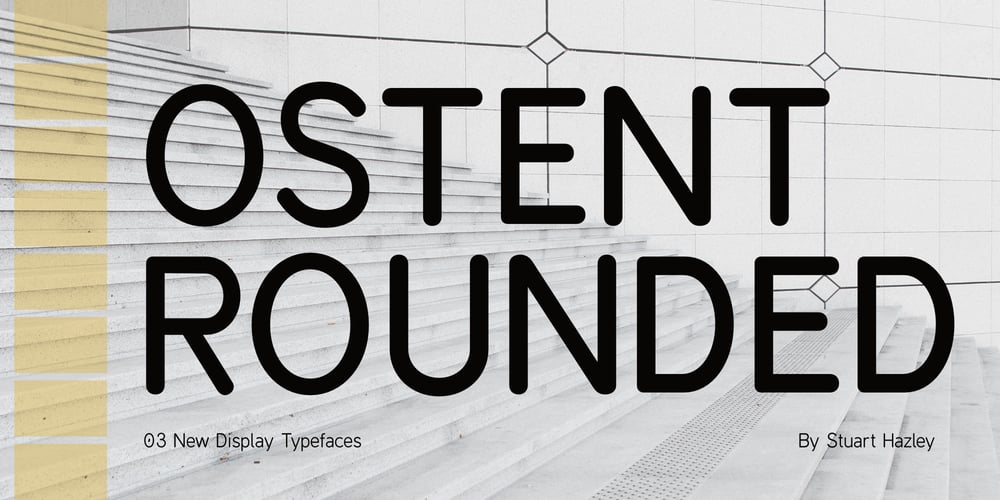
Ostent Rounded
Ostent Rounded font
Ostent Rounded Font Family was designed by Stuart Hazley and published by Stuart Hazley. Ostent Rounded contains 3 styles and family package options. Introducing Ostent Rounded, a modern typeface that blends the timeless elegance of Din 1451 with a contemporary twist. This font family adds a touch of sophistication to your design projects, and is available in three carefully crafted weights, namely Light, Regular, and Heavy, offering a versatile range for a variety of applications.Inspired by the iconic Din 1451, known for its clarity and legibility, our rounded interpretation introduces a softer and friendlier aesthetic while retaining the structured and balanced characteristics of the original design. The three weights provide flexibility in conveying your message, whether you want a subtle, airy feel with Light, a balanced and standard appearance with Regular, or a bold and impactful statement with Heavy.Furthermore, Ostent Rounded serves as a rounded counterpart to our previously released Ostent font family, expanding your typographic choices. By combining the sleek lines of Ostent with the rounded elements, Ostent Rounded strikes the perfect balance between professionalism and approachability, making it ideal for a wide range of design applications, including branding, editorial design, web design, and more.Elevate your projects with the harmonious fusion of classic and contemporary design elements embodied in Ostent Rounded. Experience the versatility and visual appeal that this rounded Din-inspired font family brings to your creative endeavours.